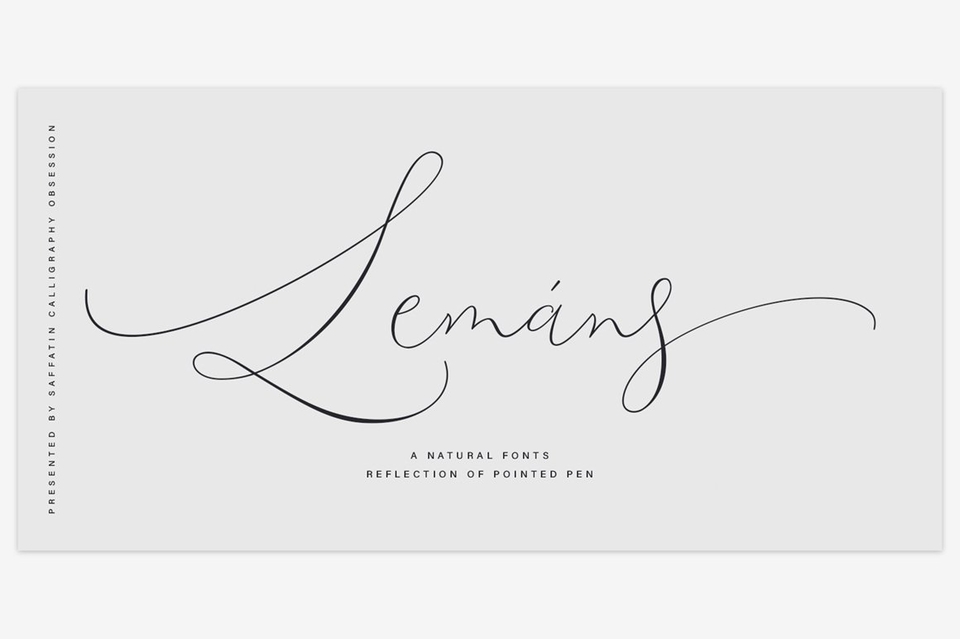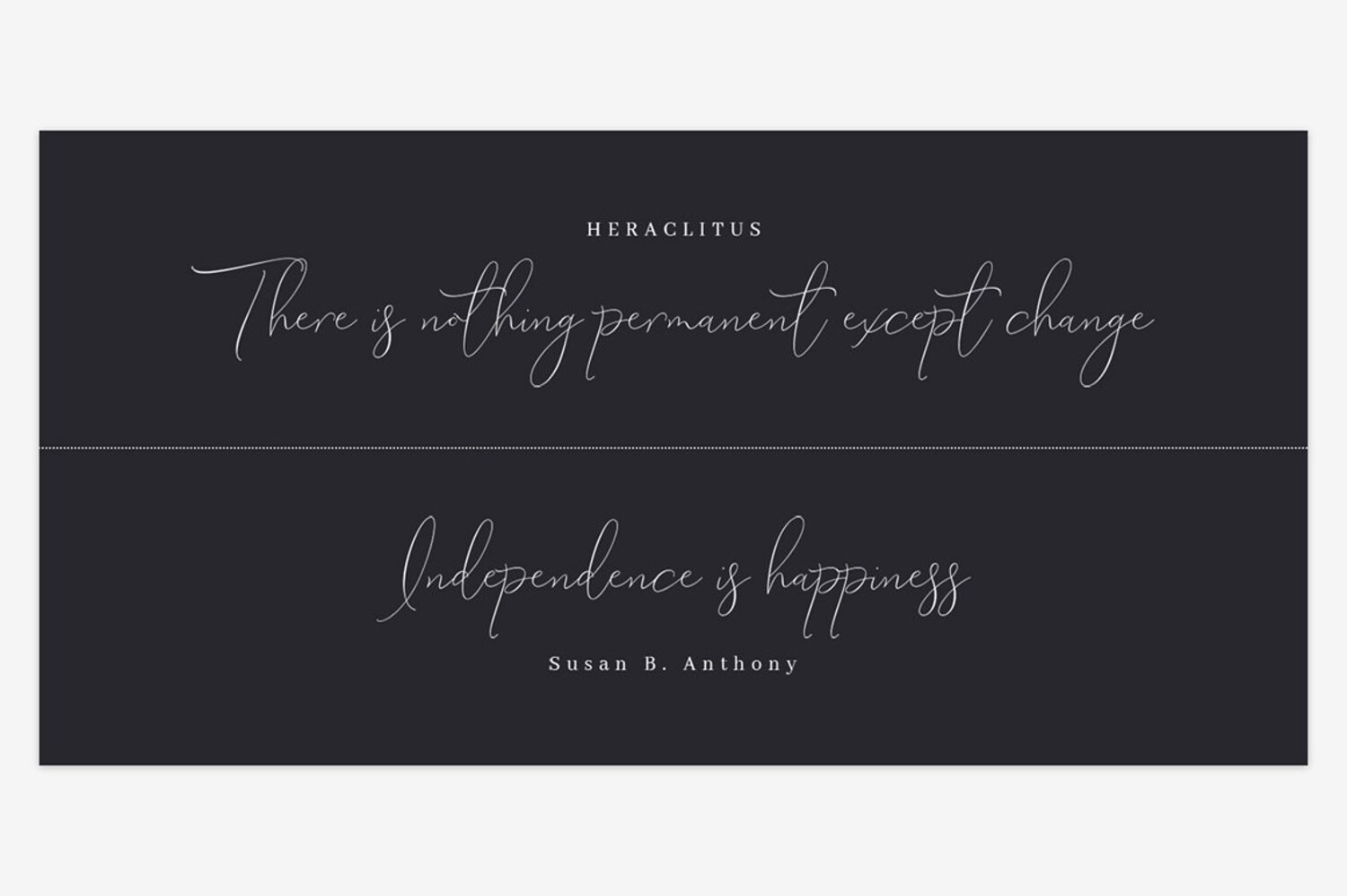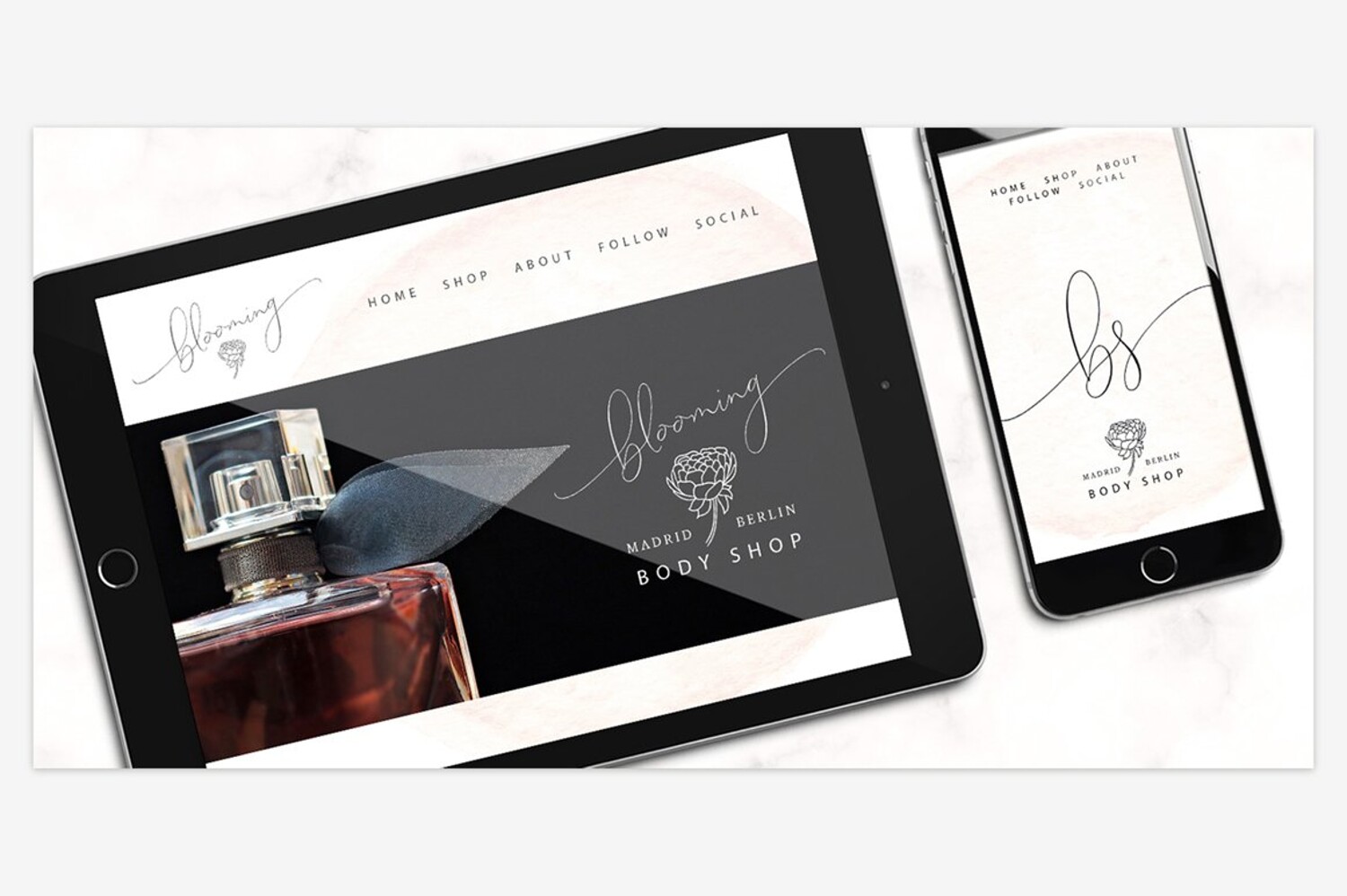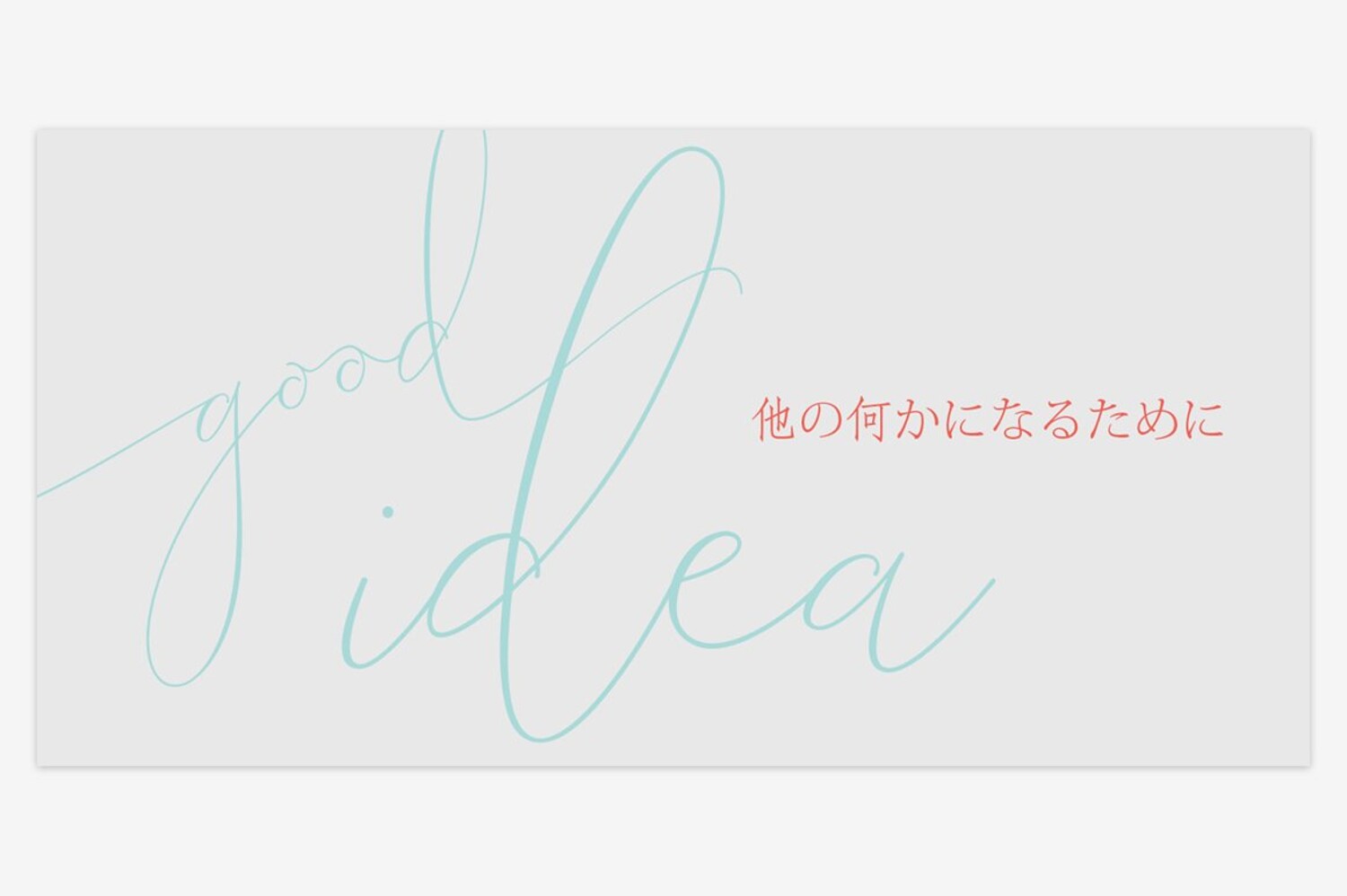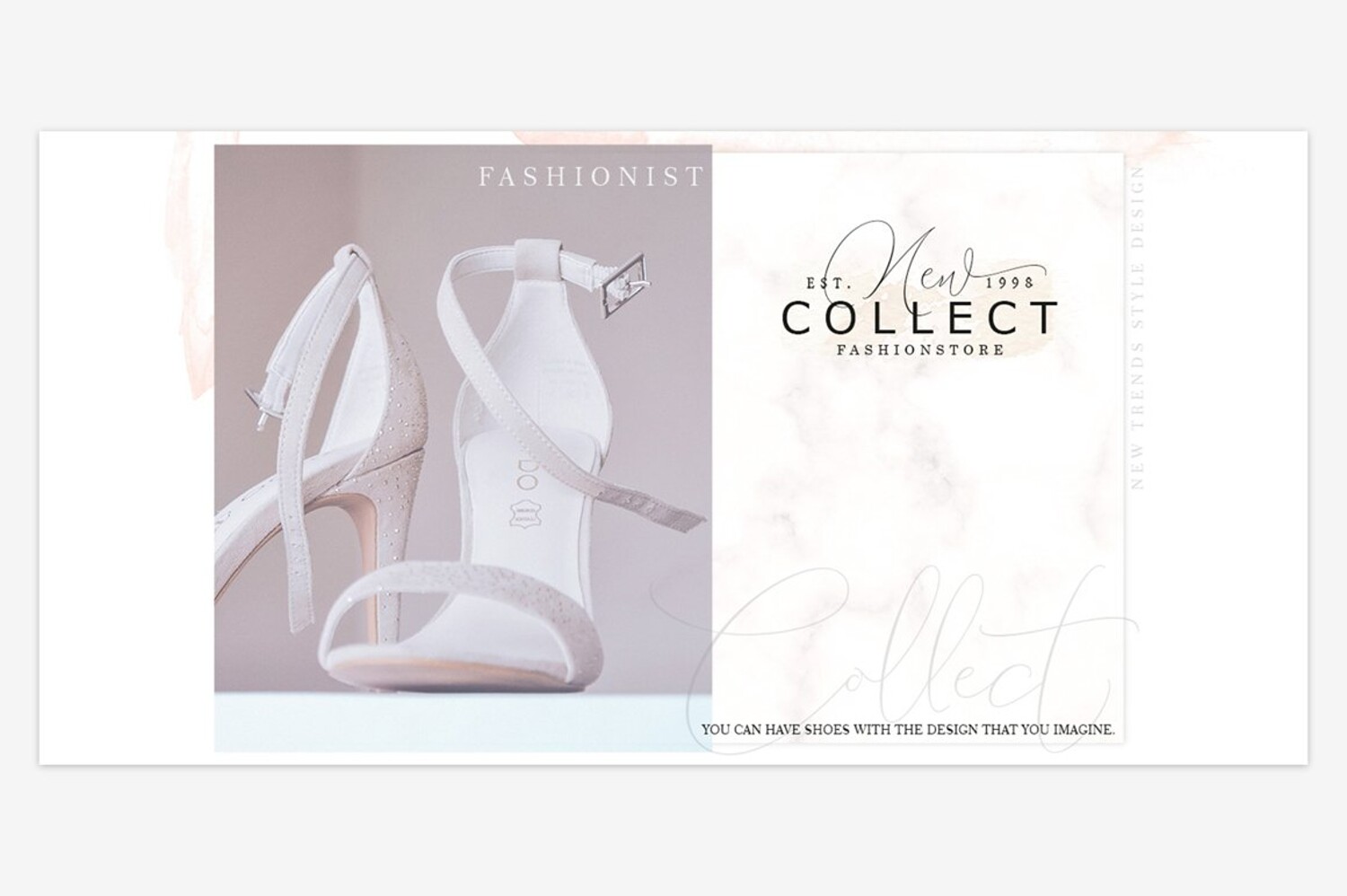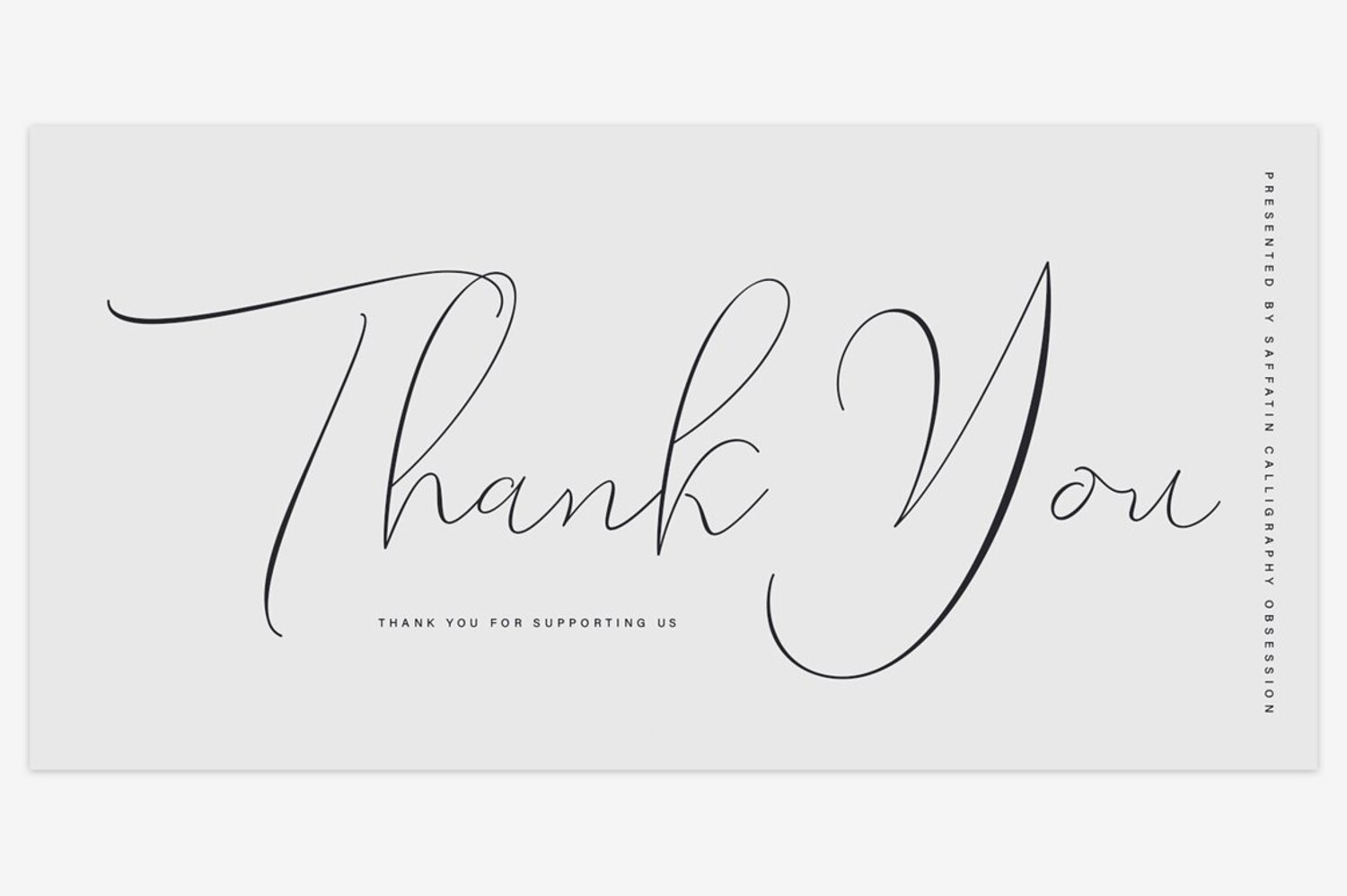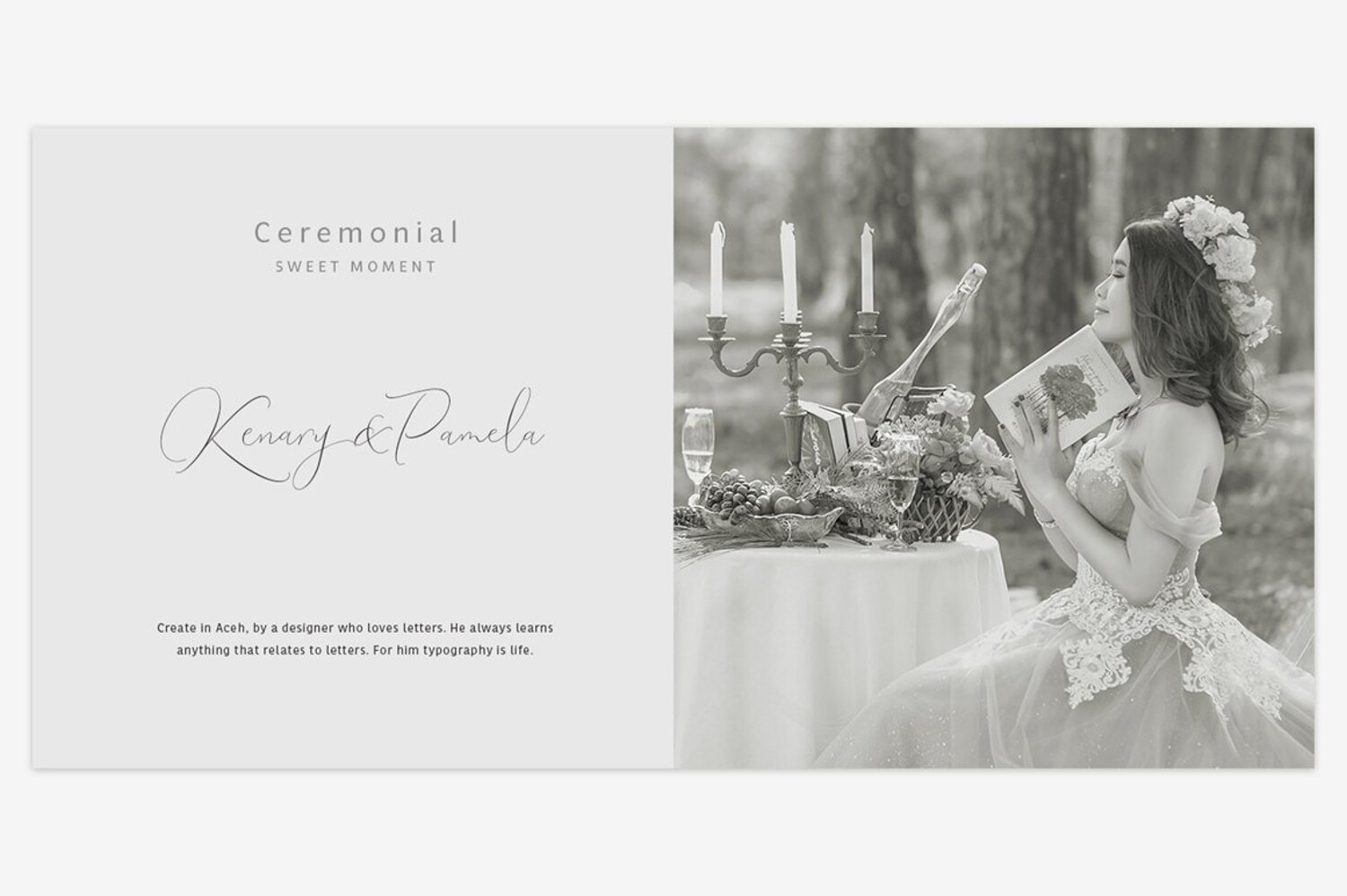
by Saffatin Co
Lemans Pen Script Fonts
Inspired by calligraphy style combined with modern taste. This is very thin, slim, spontaneity, clean and look wild. Lemans Pen Script includes full set of gorgeous uppercase and lowercase letters, numerals, a large range of punctuation, ligatures. All lowercase letters include beginning and ending swashes. Lemans Pen Script support accent letters of Central Europa, Western (À Â Æ È Ë ã ä æ è...)